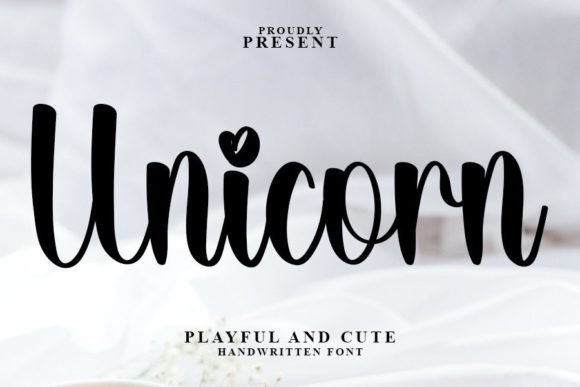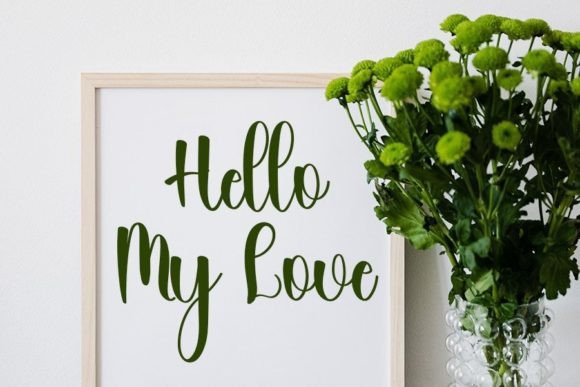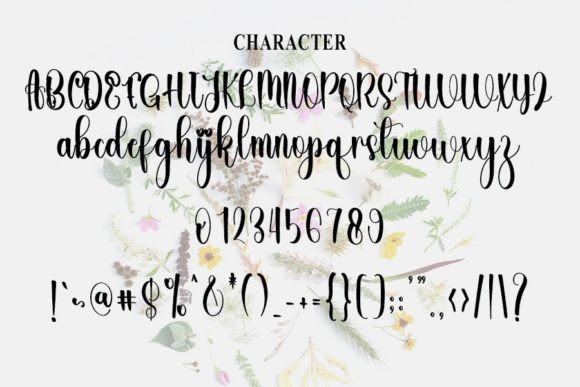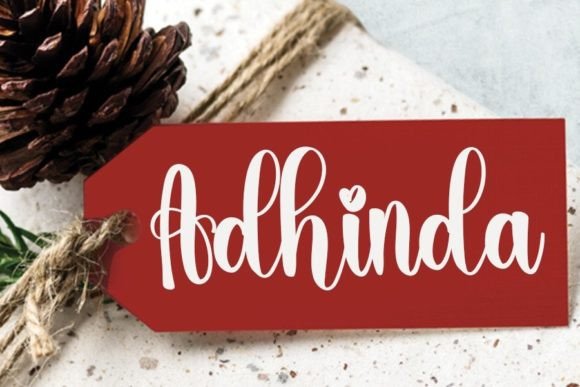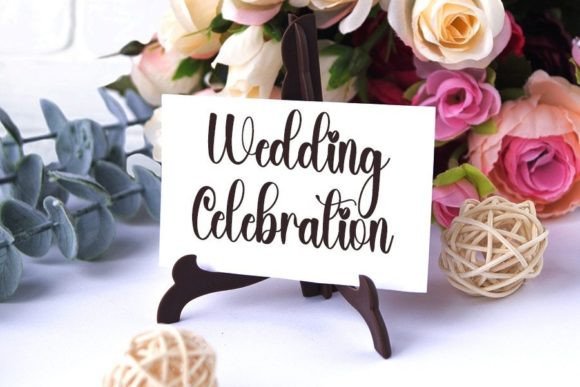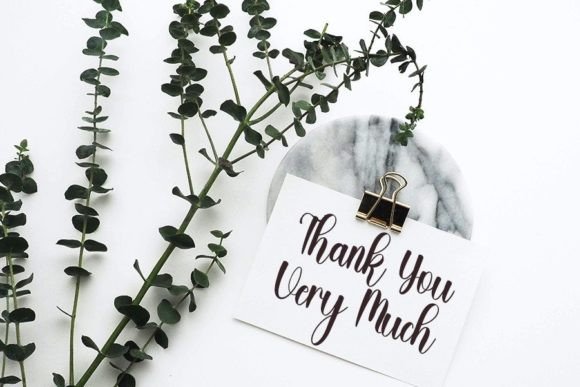
About Unicorn Font
Unicorn is a cheerful and handwritten font that infuses your designs with a sense of happiness and fun. Tailor-made for a variety of applications such as branding, packaging, logotypes, headlines, wedding invitations, and more, this font is designed to bring a lively and upbeat mood to your projects.
The playful and informal nature of Unicorn adds a touch of personality to your designs, making it an ideal choice when you want to create a vibrant and enjoyable atmosphere. Whether you’re working on product packaging, establishing a brand identity, or crafting wedding invitations, Unicorn brings a happy and whimsical vibe to the forefront.
Its handwritten style adds an authentic and personalized feel to your projects, creating a connection with your audience. The versatility of Unicorn ensures it adapts seamlessly to various design contexts, making it a dynamic choice for any creative endeavor that requires a dash of joy.
In essence, Unicorn is more than just a font; it’s a design tool crafted to bring a happy and fun mood to your creations. Choose Unicorn to infuse your designs with a sense of cheerfulness and playfulness, ensuring that your projects radiate positivity and enjoyment.